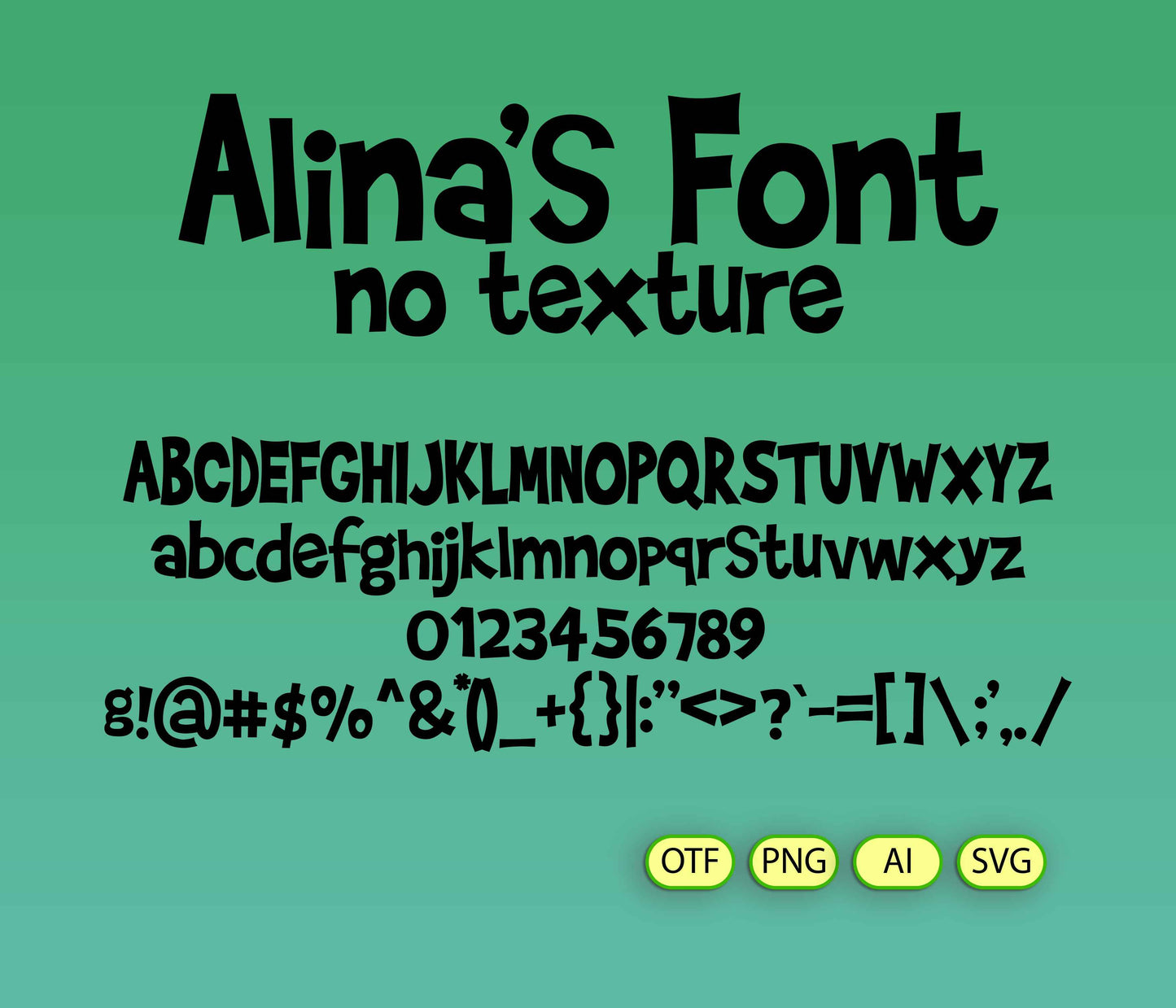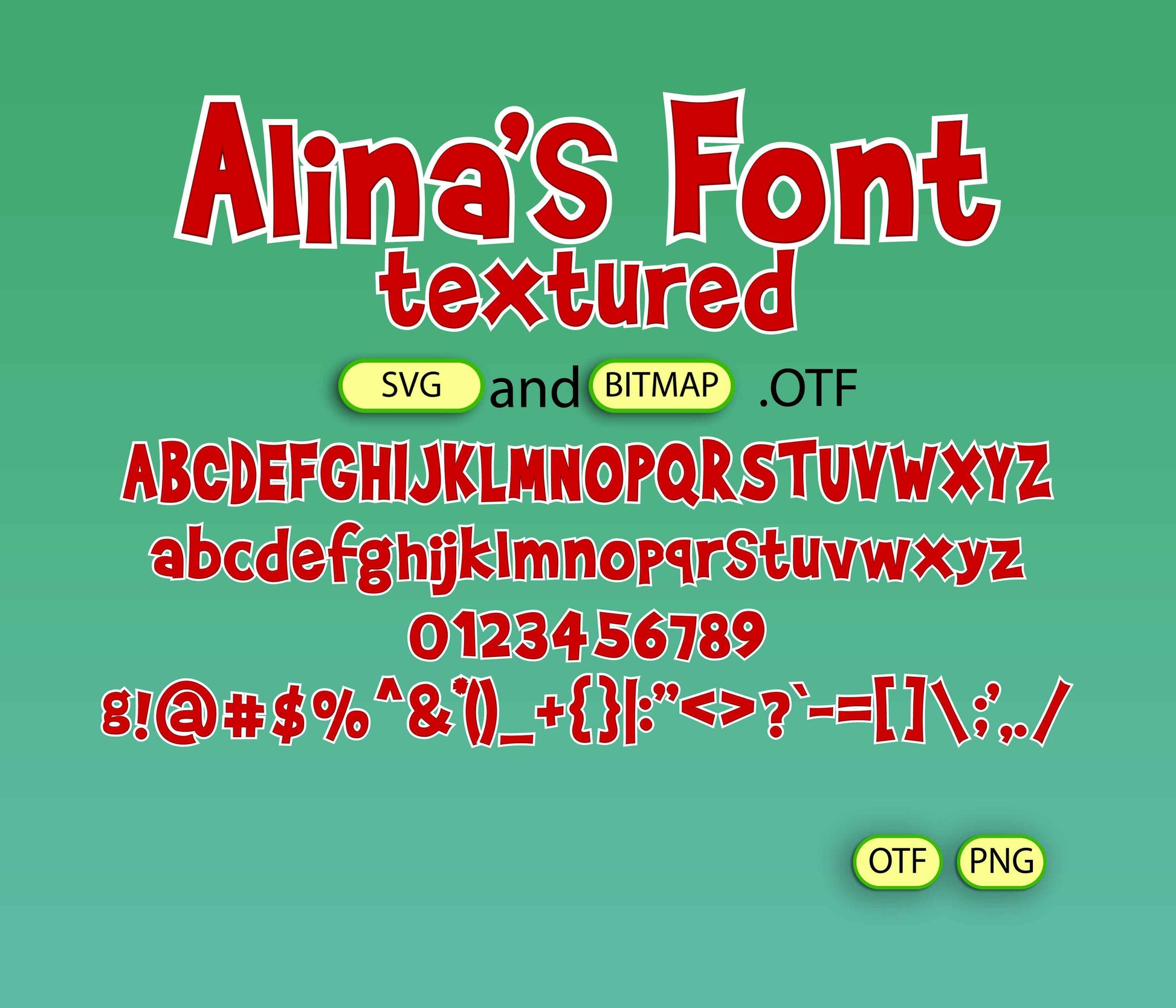
Veggie Friends Font Textured
Veggie Friends Font: A Fresh Approach to Typographical Fun
Welcome to the vibrant and whimsical world of Veggie Friends, where vegetables aren't just for eating—they're for teaching, entertaining, and inspiring! The Veggie Friends font captures the essence of a beloved children's series featuring animated produce, infusing every word with joy and playfulness. Designed to appeal to both the young and young-at-heart, this font is perfect for any project that aims to deliver messages with a fun, friendly, and uplifting spirit.
What font is Veggie Friends Font?
The Veggie Friends font is crafted with unique characteristics in mind, featuring rounded, soft shapes that emulate the friendly and approachable nature of animated vegetable characters. Each letter is designed to be as engaging and animated as a cheerful produce crew, with bold lines and cheerful curves that are easy on the eyes and effective in capturing attention. The comprehensive character set includes not only upper and lowercase letters but also numbers and special characters, making it a versatile choice for a wide array of creative and educational projects.
The Veggie Friends font is exceptionally versatile, perfect for a variety of uses that extend the joyful theme of animated vegetables:
1. Children's Book Titles and Text: Bring stories to life with a font that's fun and engaging.
2. Educational Materials: Create worksheets, classroom posters, and learning aids that make education enjoyable.
3. Birthday Party Invitations: Design delightful invitations for children's parties with a produce-themed twist.
4. Merchandise Design: Apply the font to t-shirts, hats, and other merchandise that appeals to young fans.
5. Digital Content: Enhance your YouTube videos, social media posts, or any online content aimed at children.
6. Event Banners: Decorate events or community programs with banners that stand out.
7. Video Game Interfaces: Use the font in children's games and apps for a cohesive, kid-friendly interface.
8. DIY Projects: Craft unique, personalized gifts and decorations for family and friends.
9. Promotional Materials: Market children's events and products with a font that's inherently cheerful and inviting.
10. Website Design: Create an engaging online presence for kids' clubs, educational sites, or entertainment blogs.
The Veggie Friends font is more than just a typeface; it's a tool for storytelling, learning, and creating joy. With its compatibility with Canva and other platforms, along with its textured and non-textured variants, this font offers endless possibilities to bring fun and inspiration into various projects. Whether you're designing educational content, personalizing a child's birthday celebration, or creating merchandise, the Veggie Friends font helps you spread joy and positivity in every creation. Dive into the playful world of animated vegetables and let your projects burst with character and charm!